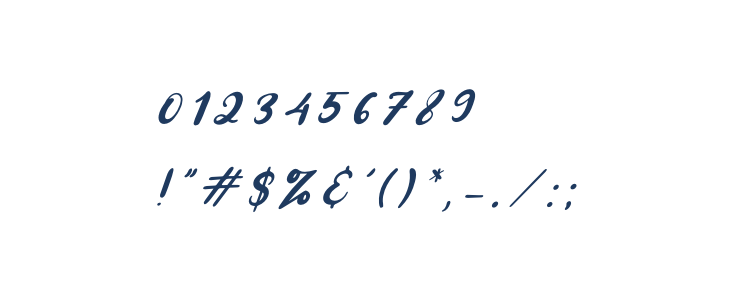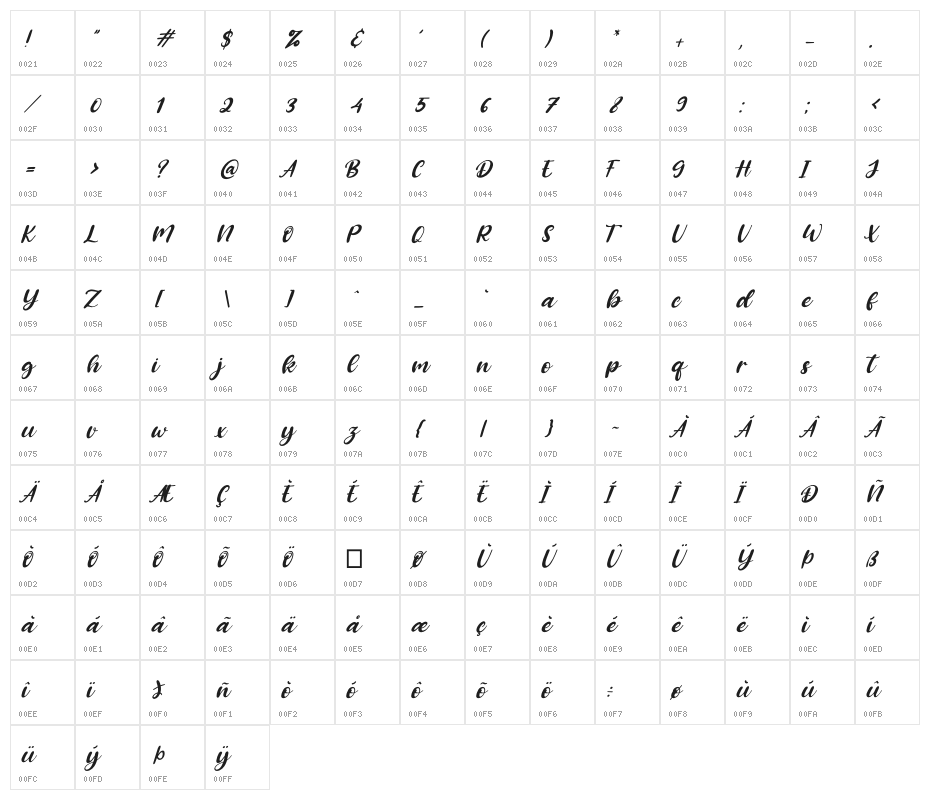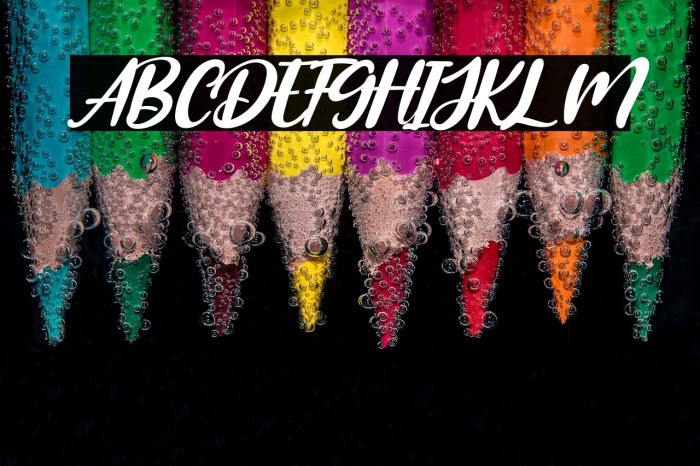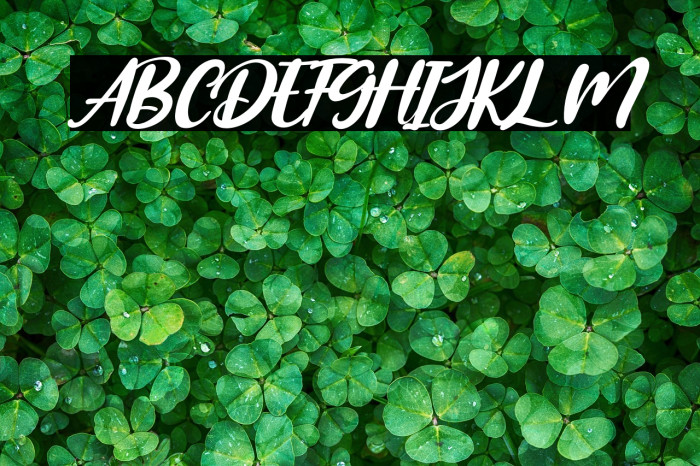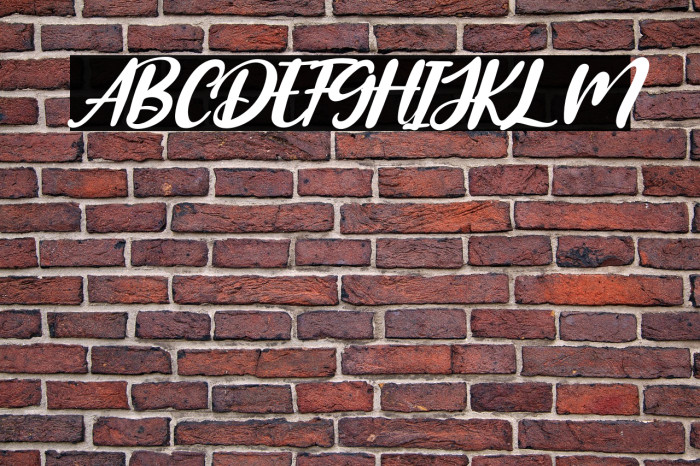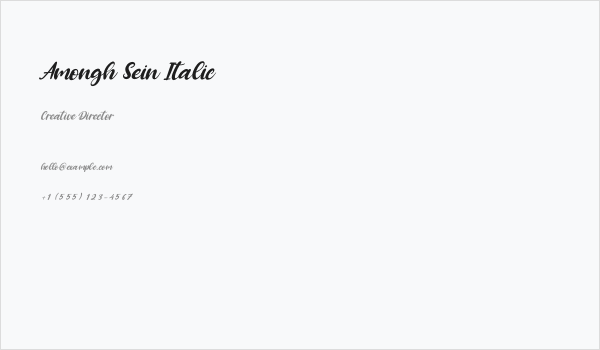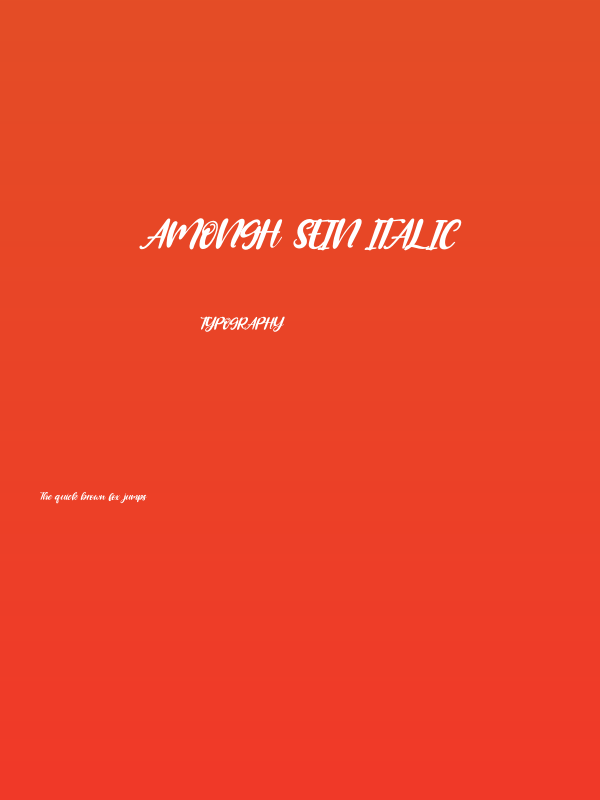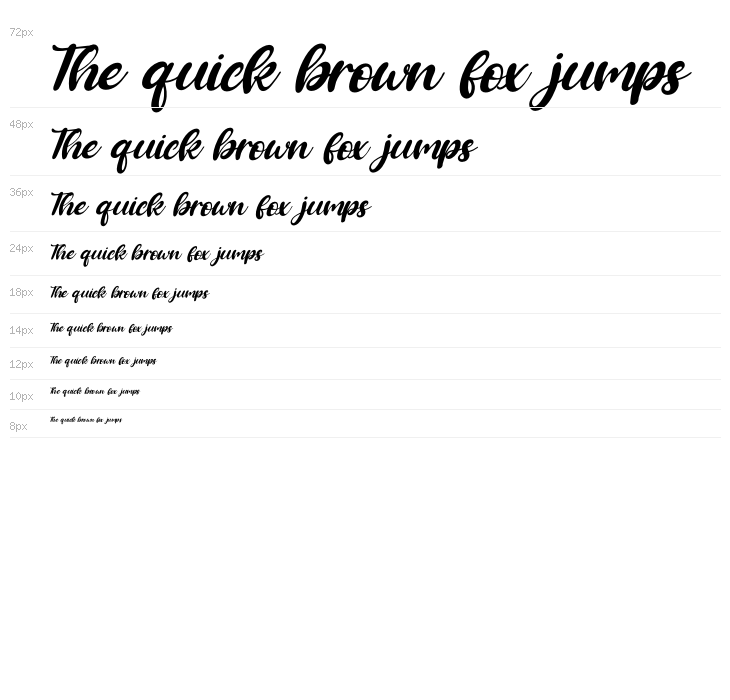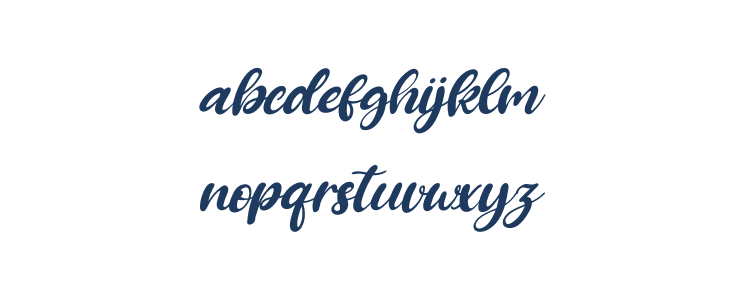
Amongh Sein Italic Font
Amongh Sein Italic Description
This font exudes a dynamic and elegant style with its fluid, cursive strokes and italicized form. The characters are interconnected, creating a seamless flow that is both sophisticated and expressive. The uppercase letters are bold and prominent, while the lowercase letters maintain a consistent rhythm, enhancing readability. Numbers and special characters are crafted with the same attention to detail, ensuring a cohesive look across all elements. The font's design is perfect for adding a touch of elegance and personality to any project.